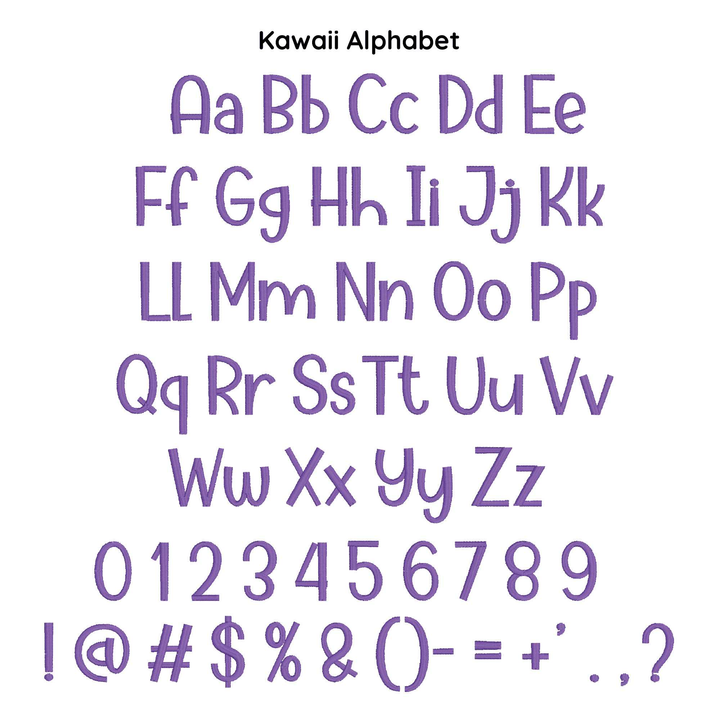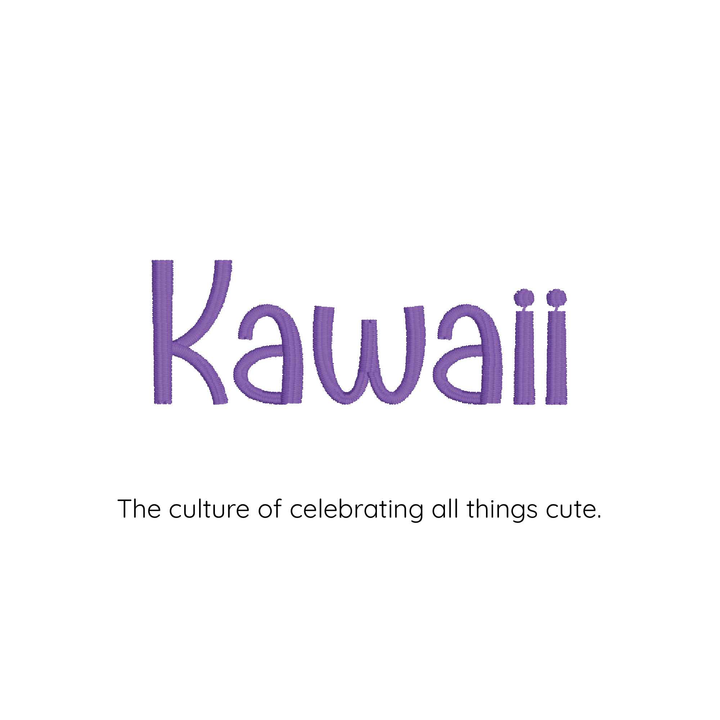
Photograph of Kawaii embroidery font
Photograph of Kawaii embroidery font alphabet
Kawaii Digital Embroidery Font
Introducing Kawaii, the ultimate digital embroidery font alphabet t inspired by the enchanting Kawaii culture of Japan! This font features a delightful collection of playful and whimsical characters that will take your embroidery designs to the next level.
Whether you're creating personalized gifts, embellishing your clothes, or adding a touch of cuteness to your home decor, Kawaii has got you covered. With its adorable characters, this font is perfect for all your crafting needs.